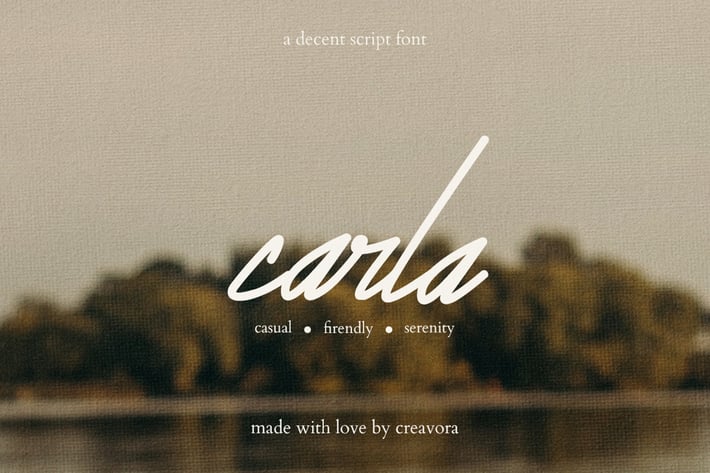
Carla - Signature Script Font
Introducing Carla - Signature Script Font
If you are looking for another casual yet serenity font, then Carla will be the best choice. This font will look fantastic for branding, packaging, print, and so many more.